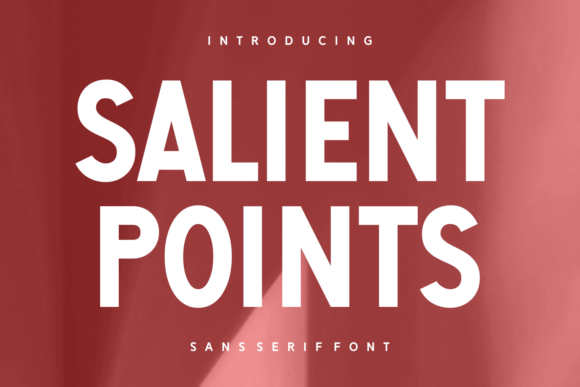
Salient Points Font: A Perfect Fusion of Elegance and Modernity
In the world of typography, a font can make all the difference in conveying a message, expressing creativity, and building brand identity. One such font that has been making waves in the design community is Salient Points, a sleek and modern Sans Serif font that effortlessly blends elegance with sophistication. Designed to be imminently adaptable, Salient Points is perfect for showcasing artistic flair in various design applications, from photography and accents to apparel and book cover designs.
The Birth of Salient Points
Salient Points is a thoughtfully crafted font that is both visually appealing and highly versatile. Its clean lines and smooth finishing make it an attractive choice for designers looking to create stunning visual content. Whether you’re working on a book cover, a magazine spread, or a brand identity project, Salient Points is a font that can adapt to your needs with ease.
Key Features of Salient Points
- Sans Serif Design: Salient Points boasts a sleek and modern Sans Serif design that is both elegant and sophisticated.
- Clean Lines: The font’s clean lines make it effortlessly attractive for cover designs, greeting cards, and other visual applications.
- Multilingual Support: Salient Points is tailored to fit multilingual needs, making it an excellent choice for designers working on projects that require support for multiple languages.
- Versatility: This font is incredibly versatile, making it suitable for a wide range of design applications, from book covers and magazines to branding and packaging.
Applications of Salient Points
Salient Points is a font that can be used in a variety of design applications, including:
1. Book Cover Designs
Salient Points is an excellent choice for book cover designs, thanks to its elegant and sophisticated appearance. Its authentic nature makes it a star in book cover designs, while its clean lines and smooth finishing ensure that it looks great on both fiction and non-fiction book covers.
2. Branding and Identity
For branding needs, Salient Points is a trusted font that can convey your brand’s identity effectively. Whether you’re designing business cards, poster prints, or other marketing materials, this font is sure to make a lasting impression.
3. Magazines and Publishing
Salient Points is a great choice for magazine spreads, thanks to its readability and stylish appearance. Its evocative nature makes it perfect for logotypes, while its clean lines ensure that it looks great on both digital and print publications.
4. Packaging and Product Design
Salient Points is a persuasive font that can add a touch of sophistication to packaging and product design. Its smooth finishing and lovely appeal make it an excellent choice for designers looking to create eye-catching packaging that stands out on store shelves.
5. Apparel and Merchandise
Salient Points is a trendy font that can be used to create stunning t-shirt prints, hoodies, and other apparel. Its modern appearance and clean lines ensure that it looks great on a variety of merchandise, from casual wear to accessories.
The Benefits of Using Salient Points
So, what makes Salient Points an excellent choice for designers? Here are just a few benefits of using this versatile font:
1. Versatility
Salient Points is an incredibly versatile font that can be used in a wide range of design applications. Whether you’re working on a book cover, a magazine spread, or a brand identity project, this font is sure to adapt to your needs.
2. Elegance and Sophistication
Salient Points boasts an elegant and sophisticated appearance that is sure to make a lasting impression. Its clean lines and smooth finishing ensure that it looks great on both digital and print materials.
3. Readability
Salient Points is a highly readable font that is perfect for body text within books, magazines, and other publications. Its clear and concise appearance ensures that readers can easily follow along with the text.
4. Multilingual Support
Salient Points is tailored to fit multilingual needs, making it an excellent choice for designers working on projects that require support for multiple languages.
In conclusion, Salient Points is a font that understands the multidimensional needs of designers. Its perfect fusion of elegance and modernity makes it an excellent choice for a wide range of design applications, from book covers and magazines to branding and packaging. With its clean lines, smooth finishing, and lovely appeal, Salient Points is sure to leave a lasting impression on your audience. So why wait? Try Salient Points today and experience the benefits of this versatile font for yourself!